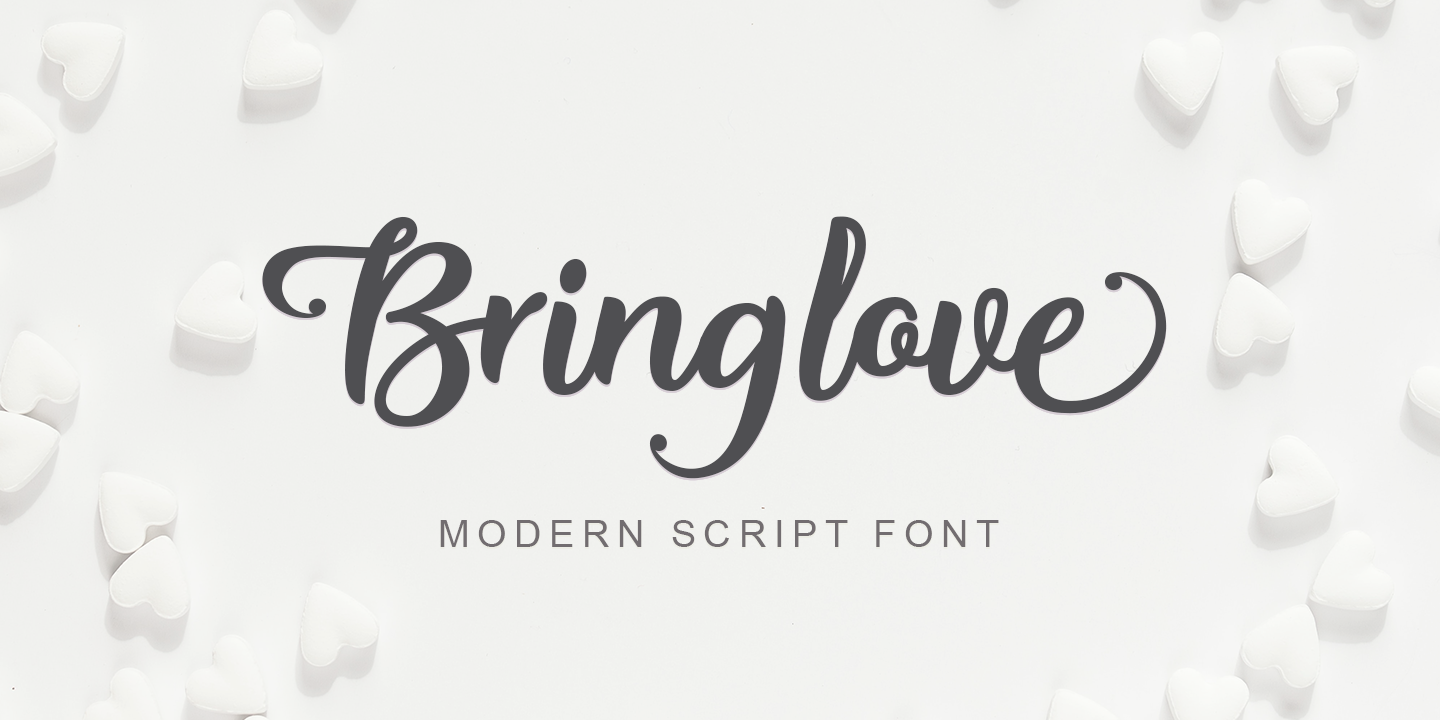
Bring Love Font is ideal for romantic wedding invitations, heartfelt greeting cards, love letter stationery, Valentine's Day campaigns, couples therapy branding, relationship coaching materials, romantic restaurant menus, anniversary celebration designs, charity foundation promotions, and compassionate projects that celebrate the universal power of love and human connection with tender emotional warmth.
What makes Bring Love Font so exciting is its beautiful expression of heartfelt emotion through gentle letterforms that radiate warmth and genuine affection. This typeface embodies the essence of love and compassion, featuring soft curves and caring details that suggest tender embraces and whispered endearments while maintaining excellent readability for contemporary romantic applications that require both emotional impact and clear communication of heartfelt messages.
Bring Love Font family encompasses multiple affectionate variations: Regular, Bold, Light, Tender, Caring, Gentle, Warm, and Heart versions. Each style maintains the font's inherent loving character while offering different levels of emotional intensity and romantic appeal, providing designers with comprehensive tools for creating authentic love-themed aesthetics that resonate with audiences seeking meaningful emotional connections and heartfelt experiences.
The heartwarming appeal of Bring Love Font Free Download makes it exceptionally valuable for relationship-focused industries and charitable organizations promoting love and compassion. This font successfully communicates genuine emotion and human connection, making it perfect for brands that want to touch hearts and inspire audiences through the universal language of love. Its tender character works beautifully across both digital relationship platforms and printed emotional materials, while its distinctive loving design creates immediate emotional resonance with audiences who value authentic human connection and compassionate relationships.